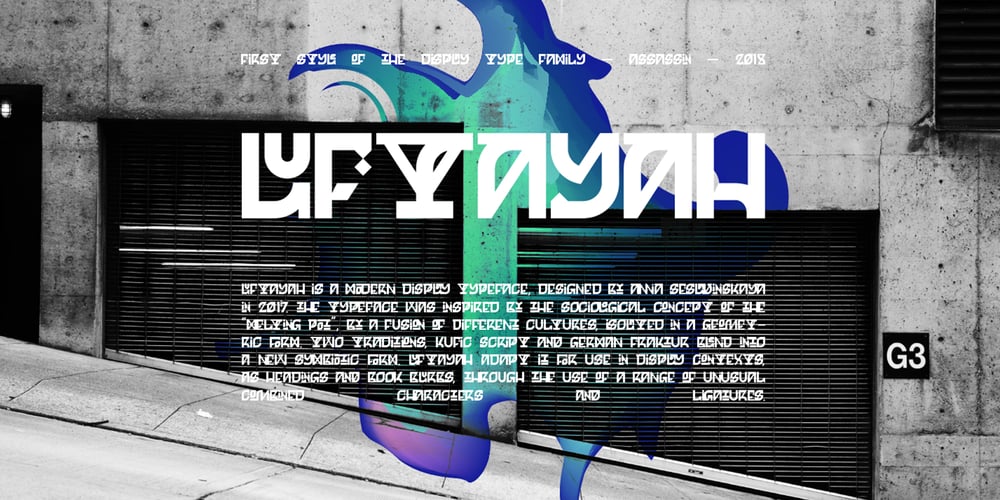
Luftayah Font Family was designed by Anna Seslavinskaya and published by Popkern. Luftayah contains 1 styles and family package options. Luftayah is a modern display typeface, designed by Anna Seslavinskaya in 2018. The typeface was inspired by the sociological concept of the “melting pot”, by a fusion of different cultures, isolated in a geometric form. Two traditions, Kufic script and German fraktur blend into a new symbiotic form. Luftayah adapt it for use in display contexts, as headings and book blurbs, through the use of a range of unusual combined characters and ligatures.